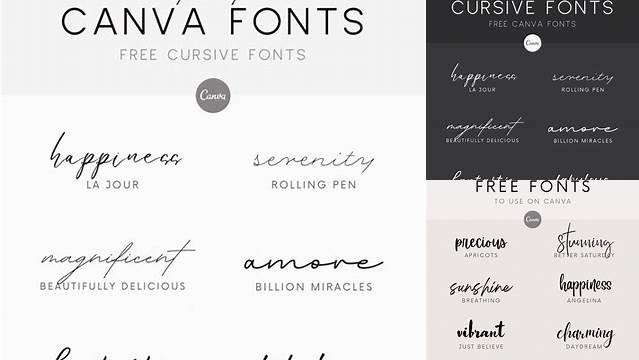
Elegant Cursive Fonts In Canva: Your Ultimate Guide
Hey guys! Are you looking to add a touch of elegance and sophistication to your designs? Cursive fonts are your best bet! And if you're a Canva user, you're in luck! Canva has a fantastic selection of cool cursive fonts that can transform your projects from simple to stunning. In this guide, we're diving deep into the world of cursive fonts in Canva, showing you how to find them, how to use them, and which ones are the absolute best. Whether you're designing invitations, social media graphics, logos, or anything else, we've got you covered. So, let's get started and explore the beautiful world of cursive typography in Canva!
Why Use Cursive Fonts?
Let's talk about why cursive fonts are such a game-changer. Cursive fonts bring a unique flair to any design, making them super versatile for various projects. Think about it – a sleek, flowing cursive font can add a touch of romance to wedding invitations, make a logo look more sophisticated, or even give your social media graphics that extra oomph. But what's the real magic behind cursive fonts? Well, it’s all about the emotion and style they evoke. Unlike standard fonts that can sometimes feel a bit sterile, cursive fonts mimic handwriting, which adds a personal and human touch to your work.
When you use cursive fonts, you're not just choosing letters; you're choosing a mood. A delicate, swirling script can whisper elegance and grace, perfect for a high-end brand or a heartfelt card. A bold, confident cursive can shout energy and style, ideal for a trendy blog or a dynamic poster. The right cursive font can capture the essence of your message and amplify it, making your design not just seen, but felt. It’s like adding a secret ingredient that makes everything taste better. And let's be honest, who doesn't want their designs to have that special something?
Cursive fonts also help in creating a visual hierarchy and adding emphasis. Imagine a website header where the main title is in a strong, sans-serif font, but the tagline is in a beautifully flowing cursive. The contrast not only looks visually appealing but also guides the viewer's eye, making sure they catch the key message. It's a subtle way to tell your audience, “Hey, this part is important!” Plus, they’re fantastic for creating contrast and balance in your overall design. You can pair them with simpler, cleaner fonts to make the cursive elements really stand out. Think of it as the yin and yang of typography – one brings the drama, the other brings the calm, and together they create harmony.
So, whether you're working on branding, invitations, marketing materials, or personal projects, don't underestimate the power of cursive fonts. They can elevate your designs, inject personality, and help you communicate your message with style and flair. Trust us, once you start playing around with them, you’ll see just how much of a difference they can make. Get ready to transform your designs from ordinary to extraordinary with the simple addition of a cursive touch! And remember, guys, it's all about finding that perfect font that speaks to you and your project’s vibe. Happy designing!
Next to the search bar, you’ll see a filter option. Click on this, and a sidebar will appear with various categories and styles to choose from. This is where you can really refine your search. Look for categories like “Script” or “Handwritten” – these will usually give you a good selection of cursive fonts. You can also filter by other characteristics like thickness, style (e.g., formal, casual), and even language. This is super helpful if you have a specific aesthetic in mind or need a font that fits a particular vibe. For instance, if you’re designing invitations, you might filter for “Formal” script fonts, while a blog post might benefit from a more casual, handwritten style.
As you browse, keep an eye out for the little crown icon next to some fonts. This indicates that the font is part of Canva Pro, which is Canva’s premium subscription. If you have Canva Pro, you’ll have access to these fonts, along with a ton of other cool features. If you’re using the free version of Canva, don’t worry – there are still plenty of amazing cursive fonts to choose from! Canva offers a fantastic selection of free fonts that can make your designs shine. Just focus on the ones without the crown, and you’ll find some real gems.
Top Cursive Font Recommendations in Canva
Alright, guys, now for the juicy part: the top cursive font recommendations in Canva! With so many options available, it can be tough to know where to start. Don’t sweat it – we’ve done the homework for you and rounded up some of the absolute best cursive fonts that Canva has to offer. These fonts are not only visually stunning but also versatile enough to work in a variety of design projects. So, let's dive into our curated list and find the perfect script for your next masterpiece.
First up, we have **